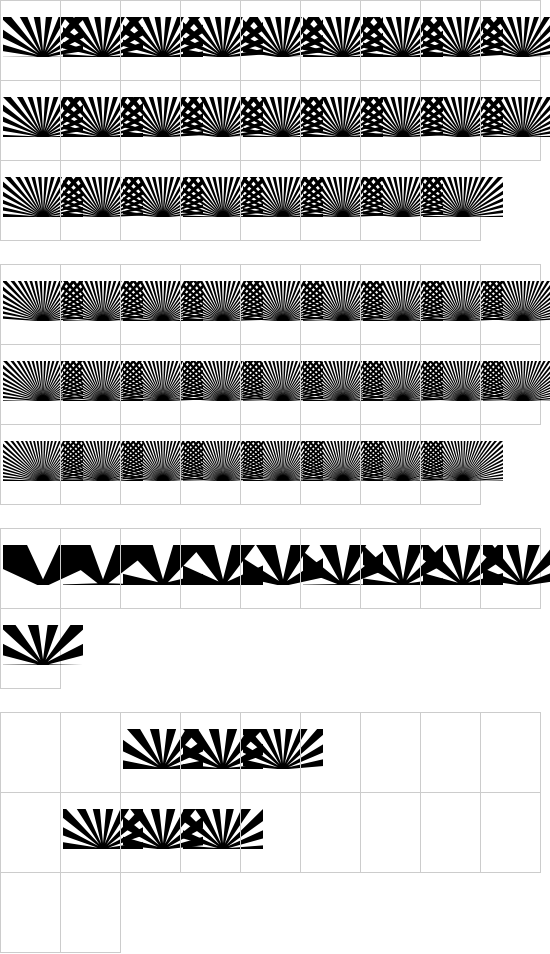
Half SunBurst-w4-02 is a dingbat font built from radiating sunburst patterns and decorative ray motifs. Each glyph delivers a different starburst or fan of rays, drawn with bold geometric symmetry that recalls art deco ornament and vintage signage. The set works as a collection of ready-made decorative bursts.
It serves well as ornamental accents on retro posters, art deco branding, packaging borders, and graphics that want striking geometric flourishes. The rays make effective backdrops and framing elements. Half SunBurst-w4-02 is free to download as a TrueType file, and you can preview the glyphs by typing into the sample field to find the bursts you want before placing them in a layout.